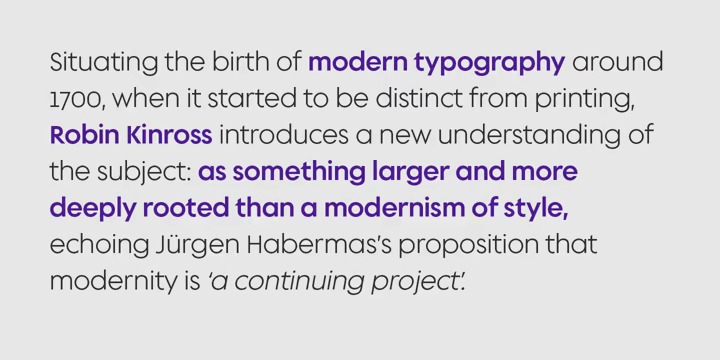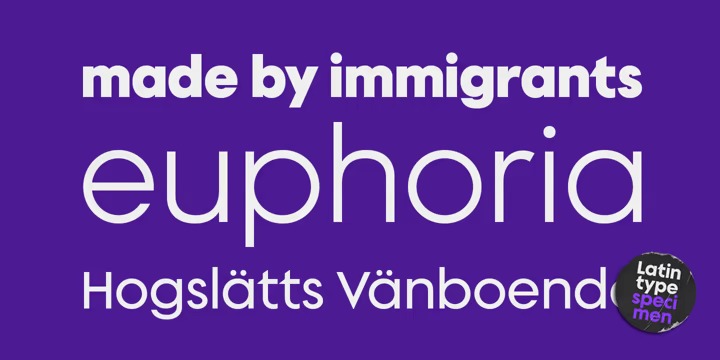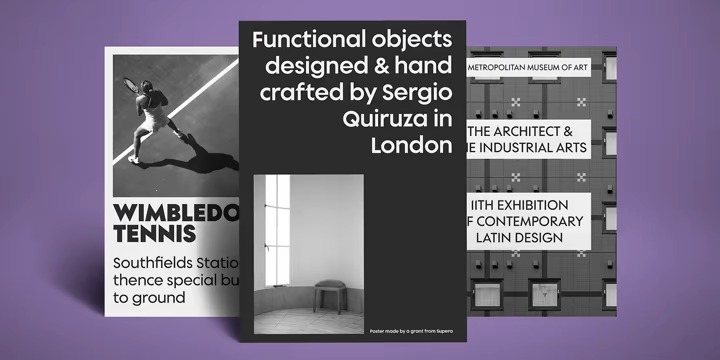
Supera Gothic Font
Supera Gothic Sans Serif Font
This font is a new geometric sans serif and clean variable font. Its characters draw inspiration from Erbar Grotesk by Jakob Erbar and Johnston by Edward Johnston; hence, in heavier weights, the “f” and “t” bars are pointed which honor Erbar’s work, and Supera’s uppercases and numbers reflect Johnston’s proportions and features. The result is a sans serif family with both, a historical and modern touch perfectly suited for all types of graphic works. Super Gothic comes in 9 weights plus its matching italics and is equipped with a large range of opentype features.
Fun fact, Erbar had attended calligraphy classes carried out by Anna Simons, who was a former student of Johnston (Tracy, 1986). Maybe in modern times, they had met through social media, and some collaborative work would have risen, who knows.